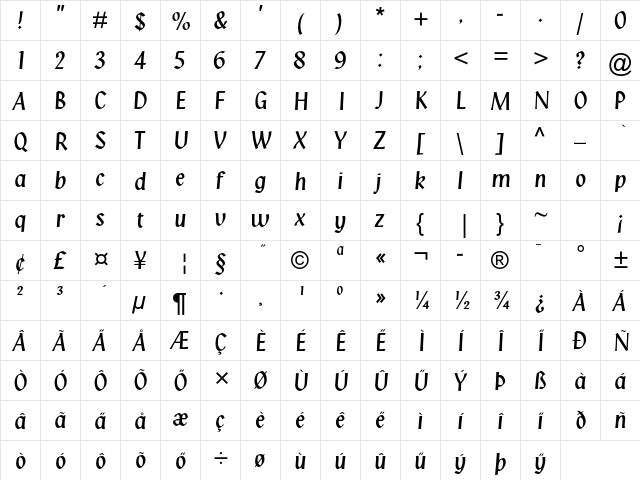
Klang MT Std Regular
| Designer | Will Carter |
Design Context for Klang MT Std Typeface
Klang MT Std offers clean, dependable letterforms without strong stylistic allegiance, making it a practical choice for designers who need flexibility.